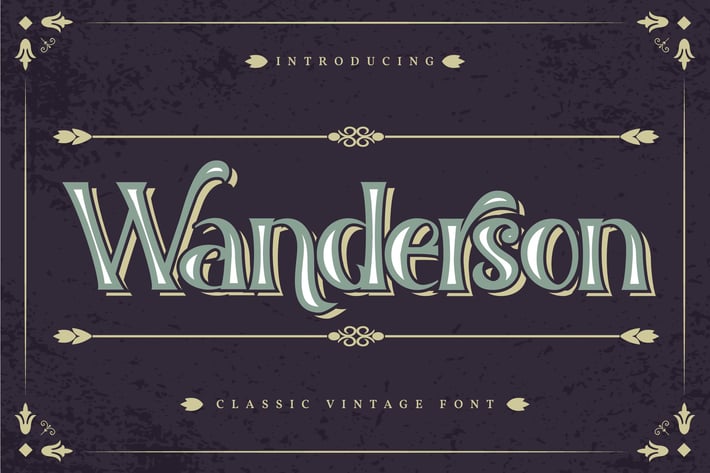
Wanderson | Classic Vintage Font
Wanderson | Classic Vintage Font with a calligraphy style, So beautiful on invitation like greeting cards, branding materials, business cards, quotes, posters, and more!